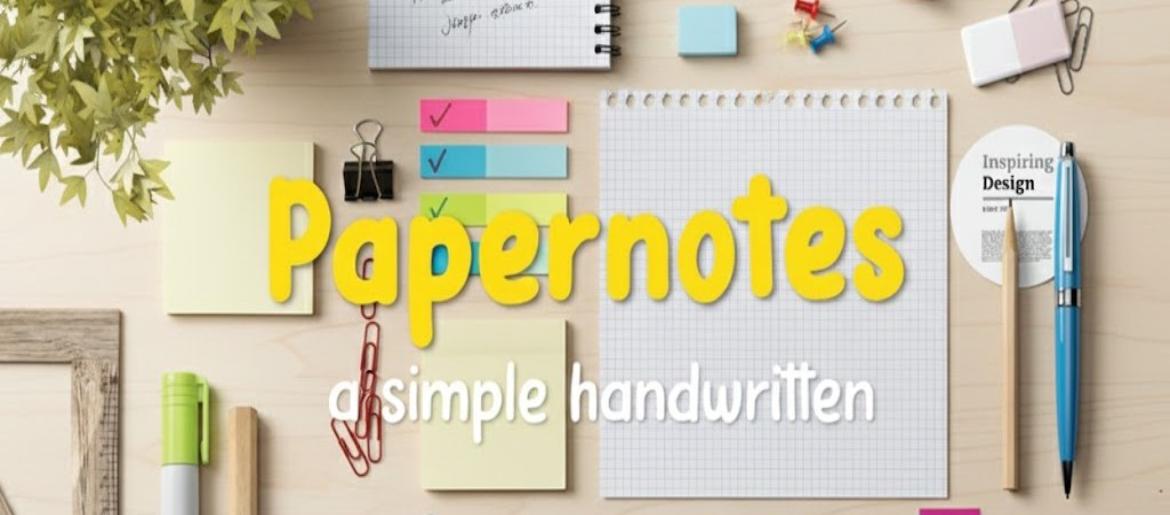
Papernotes Font
Papernotes Font is a charming handwritten typeface with natural, flowing strokes that feel warm and personal. Its casual, notebook-style lettering makes it perfect for journals, quotes, invitations, logos, social media graphics, and creative branding. Papernotes adds a cozy, authentic handwritten touch to any design.